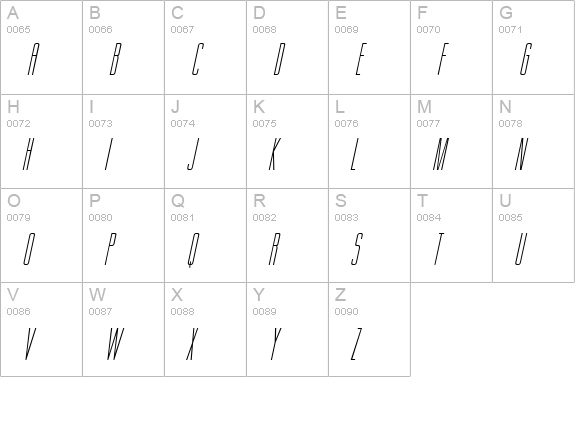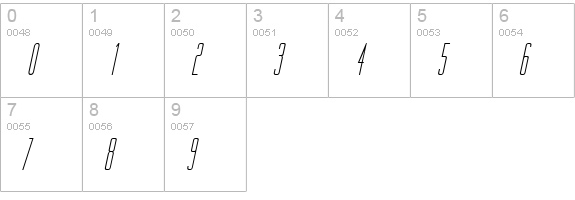
Gorgio Condensed Italic Font Details
Gorgio Condensed Italic is a distinctive, condensed-width, italic variant in the Gorgio typeface family \xE2\x80\x94 well suited to design and typography projects.
Gorgio Condensed Italic font is a sleek and modern typeface designed to add elegance and sophistication to your projects. Its condensed form conveys a sense of efficiency and professionalism, making it perfect for use in various design applications. The italic style adds a touch of flair and personality to the text, making it stand out from the crowd. The Gorgio Condensed Italic font is not only stylish but also versatile, making it suitable for a wide range of projects, from branding and advertising to web design and editorial work. Its clean lines and sharp angles give it a contemporary edge, while the italic slant adds a dynamic element to the text. Best of all, the Gorgio Condensed Italic font is available for free download at FontsMarket.com, making it accessible to designers and creatives looking to elevate their work without breaking the bank. Don't miss out on this opportunity to enhance your projects with this sophisticated and stylish typeface. Download Gorgio Condensed Italic font today and see the difference it can make in your designs!